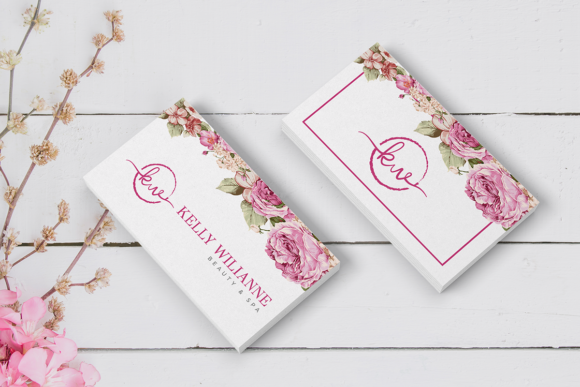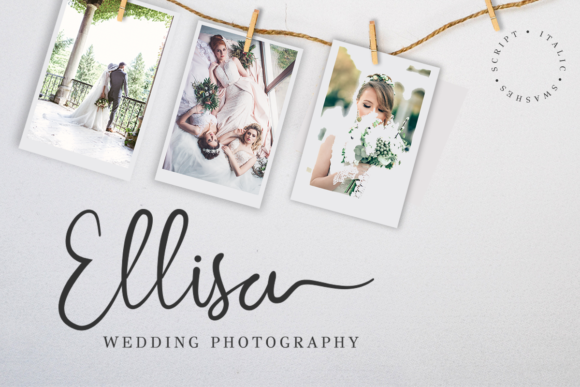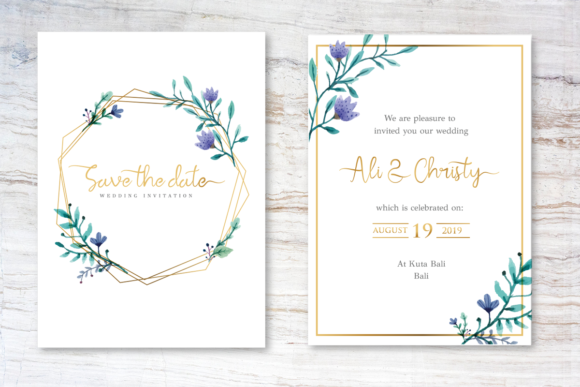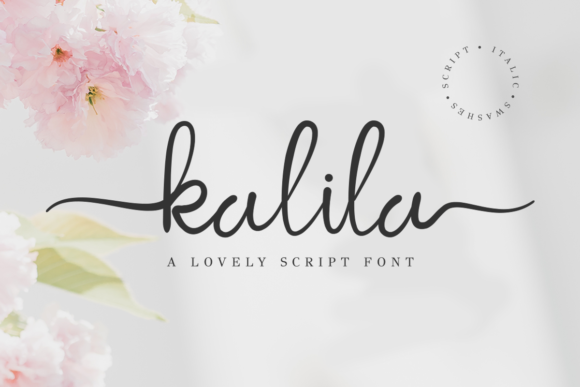
Kalila Script Font: Free Download Now
The Kalila is a modern calligraphy font with handwritten, sophisticated flows.
It includes short lowercase beginning and lowercase ending heart swashes, which serve to connect two words or letters (This is so perfect for invitations, monograms, etc) and long lowercase beginning and ending swashes It has smooth texture, so it’s perfect for all types of printing techniques + you can do embroidery, laser cut, gold foil etc.
Kalila Script Font offers exceptional quality and versatility, making it a valuable addition to your design toolkit. Whether you’re creating for personal projects or commercial use, Kalila Script Font delivers professional results.